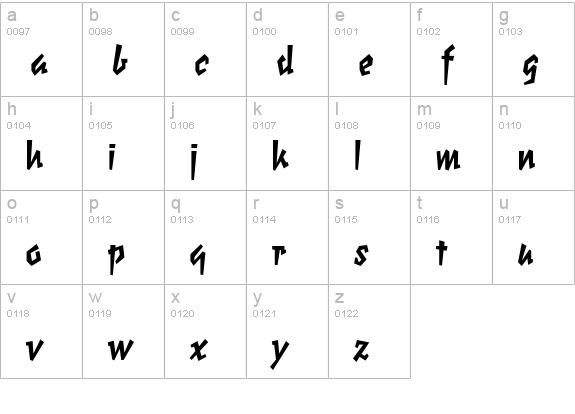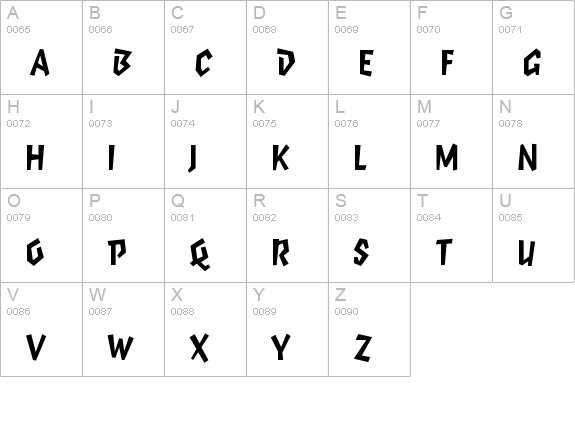
Elektrix-Bold is a strong, high-contrast variant in the Elektrix typeface family \xE2\x80\x94 well suited to headlines, attention-grabbing titles, and strong calls-to-action.
Elektrix-Bold is a modern and bold typeface that exudes confidence and strength. With its clean lines and sharp edges, this font is perfect for making a statement in your designs. Whether you are creating a striking poster, a powerful logo, or a sleek website, Elektrix-Bold will not disappoint. The best part? Elektrix-Bold is available for free download at FontsMarket.com. This means that you can easily access this eye-catching font without breaking the bank. So why wait? Add Elektrix-Bold to your font collection today and let your designs shine with its bold and electrifying presence.